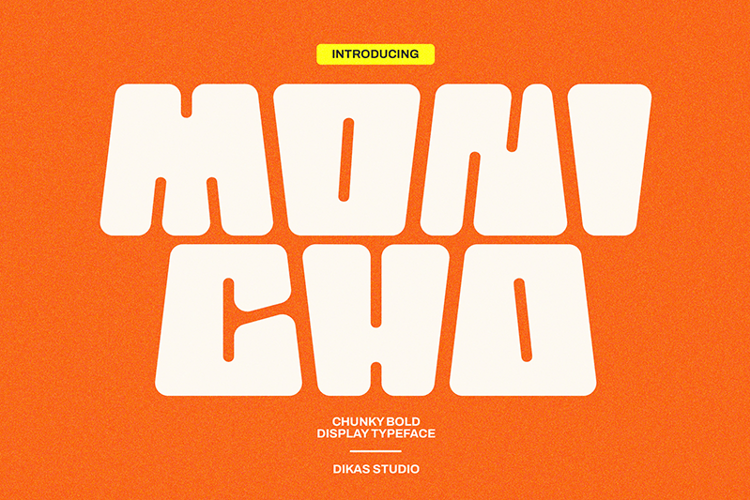
Monicho - Font
Introducing Monicho – a chunky bold sans serif with a retro and fun personality. Designed with strong shapes and playful character, Monicho brings a nostalgic charm that feels both classic and modern.
Perfect for retro-themed designs, posters, logos, branding, and eye-catching displays, this typeface adds a lively, vibrant energy to any project. Whether you’re crafting a vintage-inspired identity or a fun design with personality, Monicho is ready to stand out.